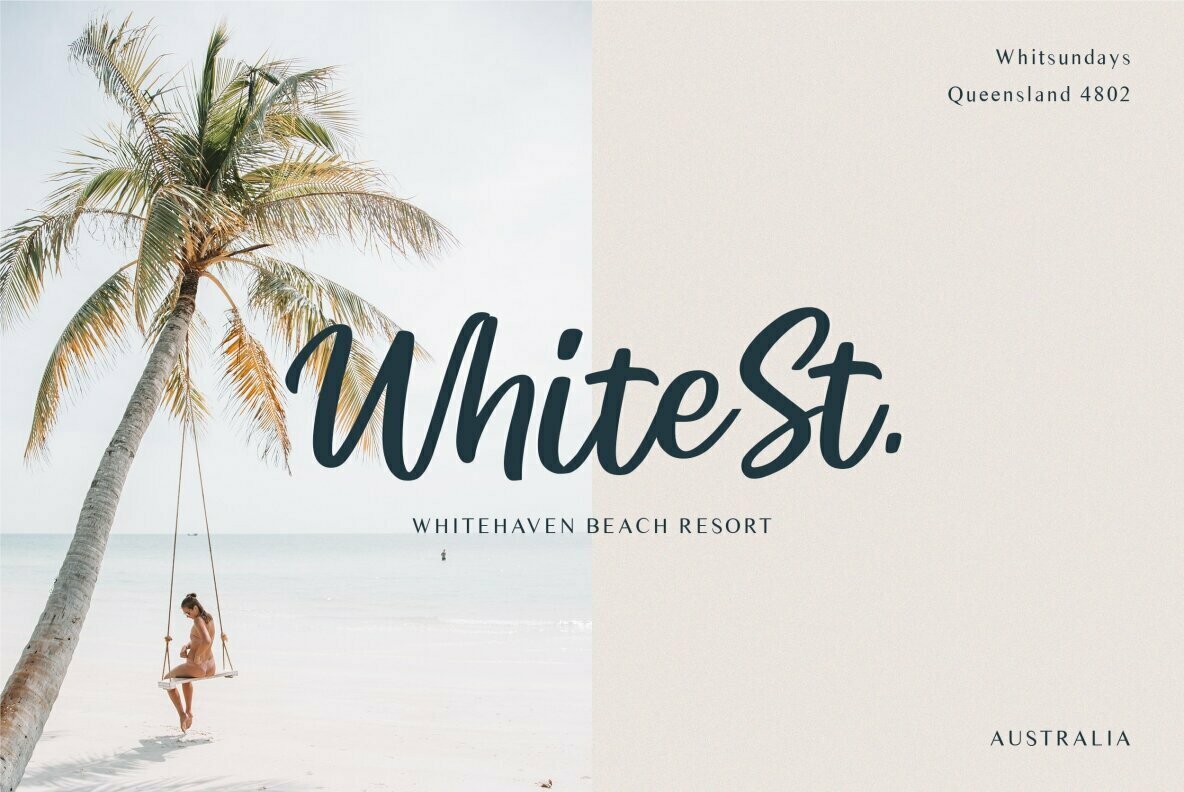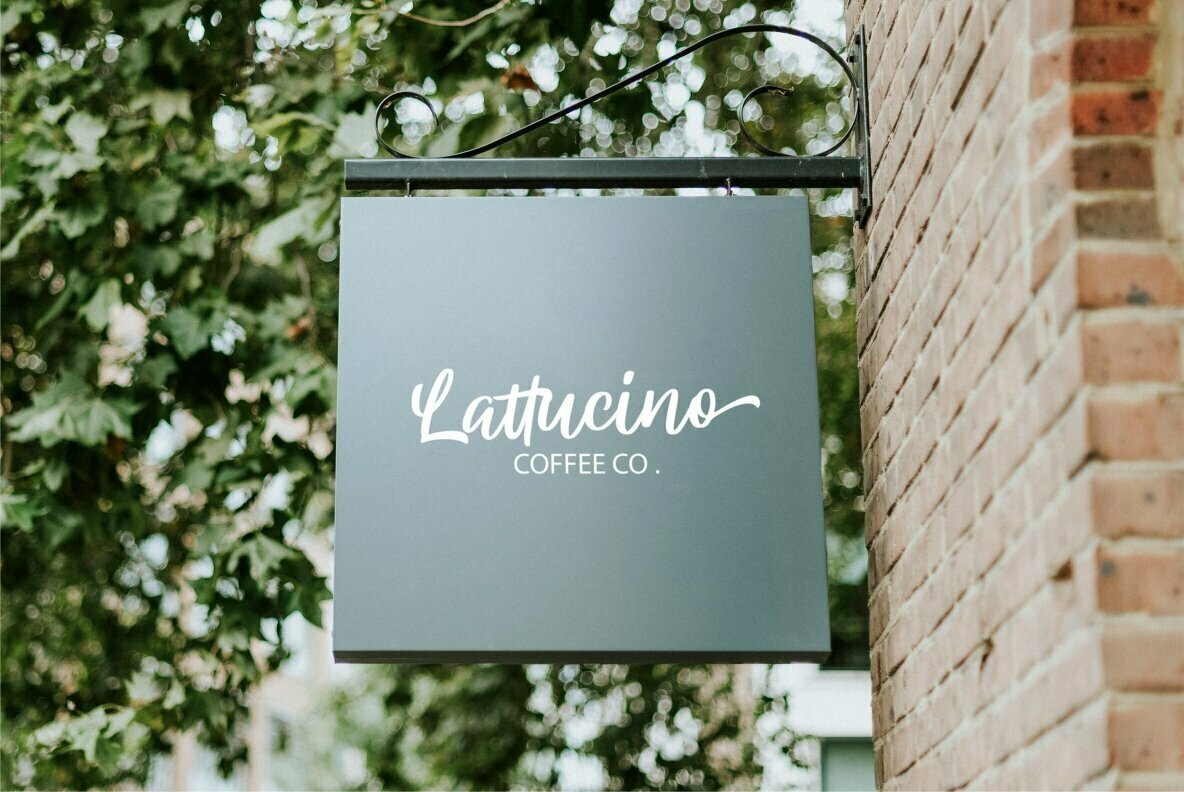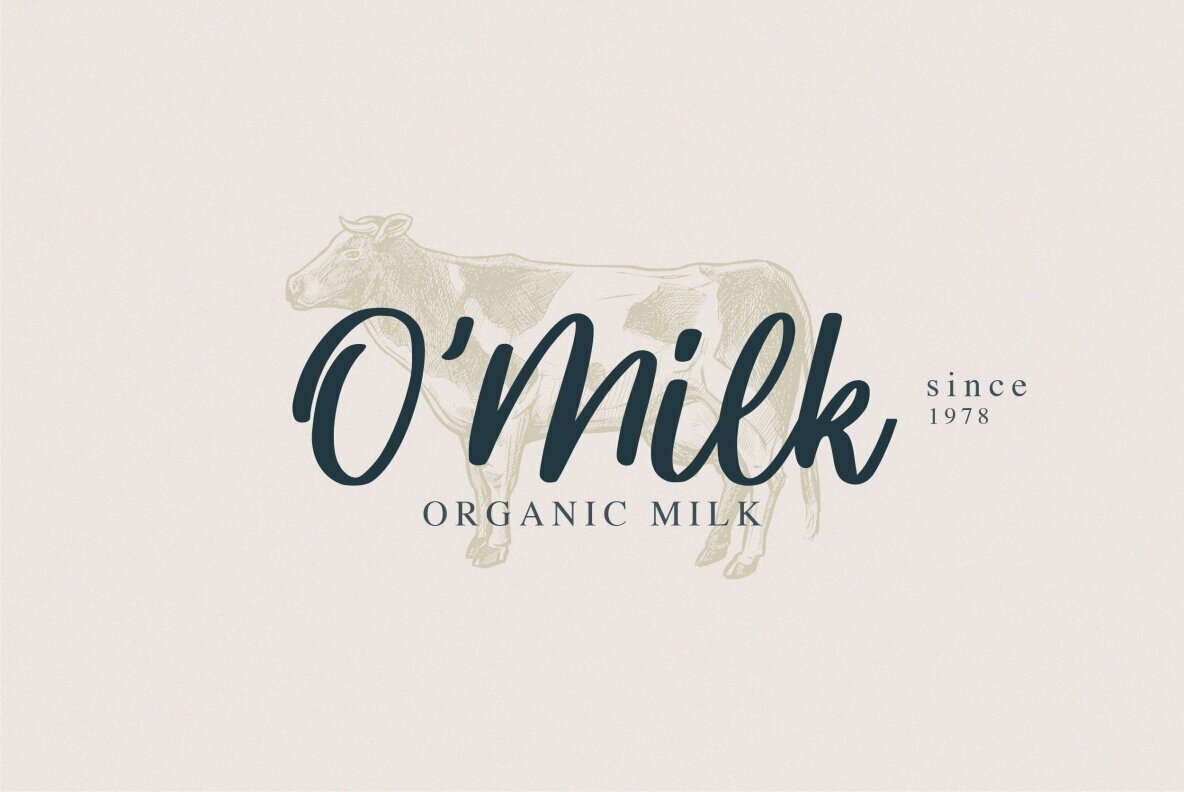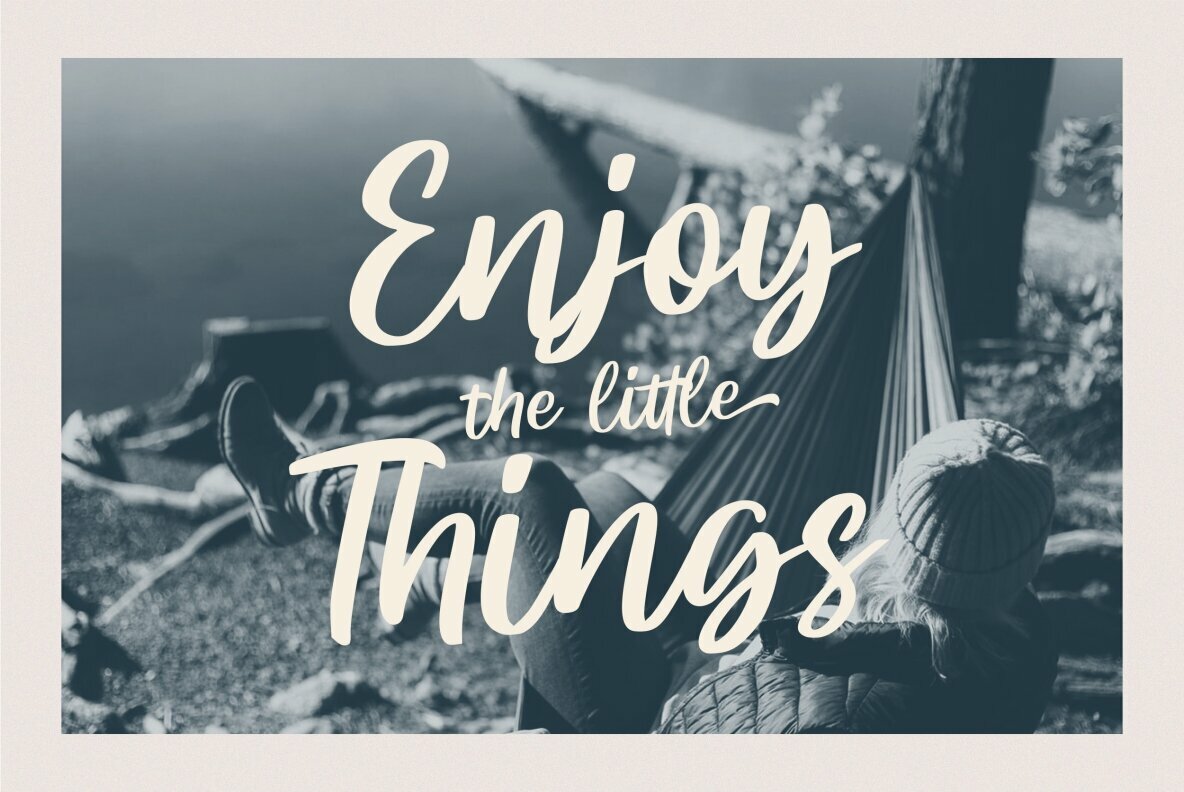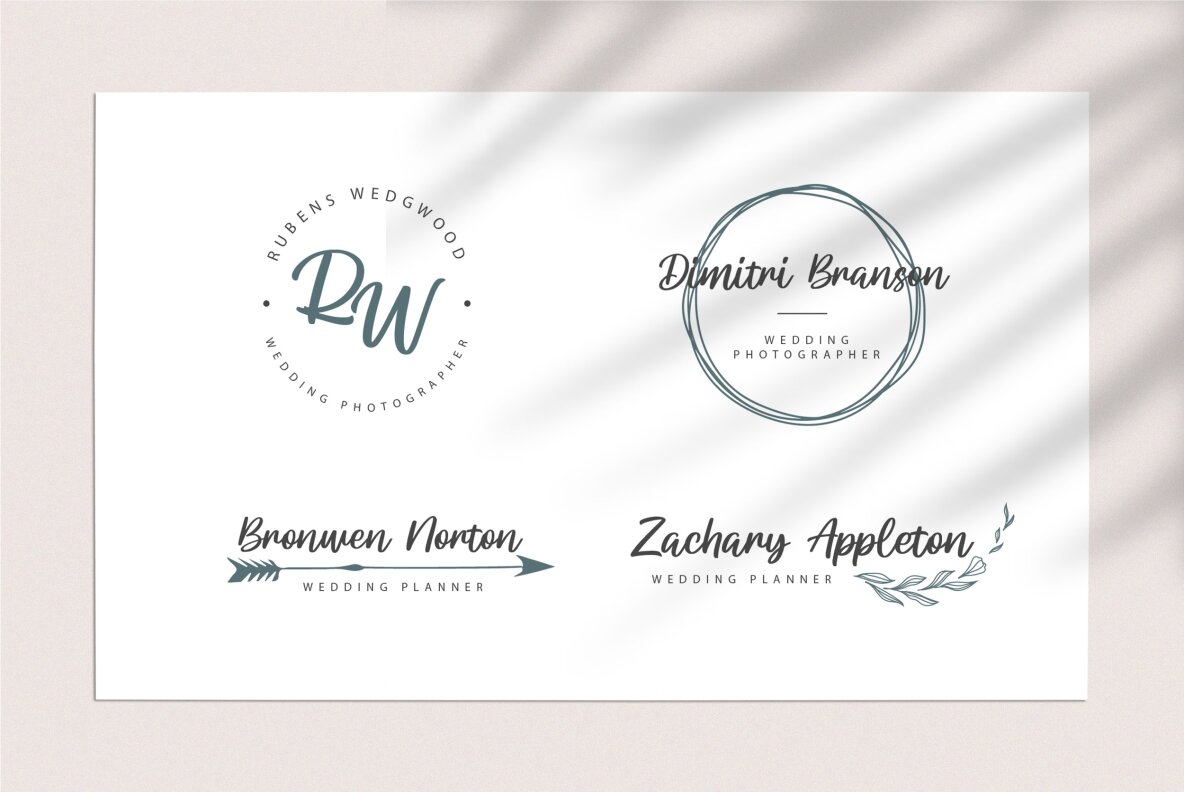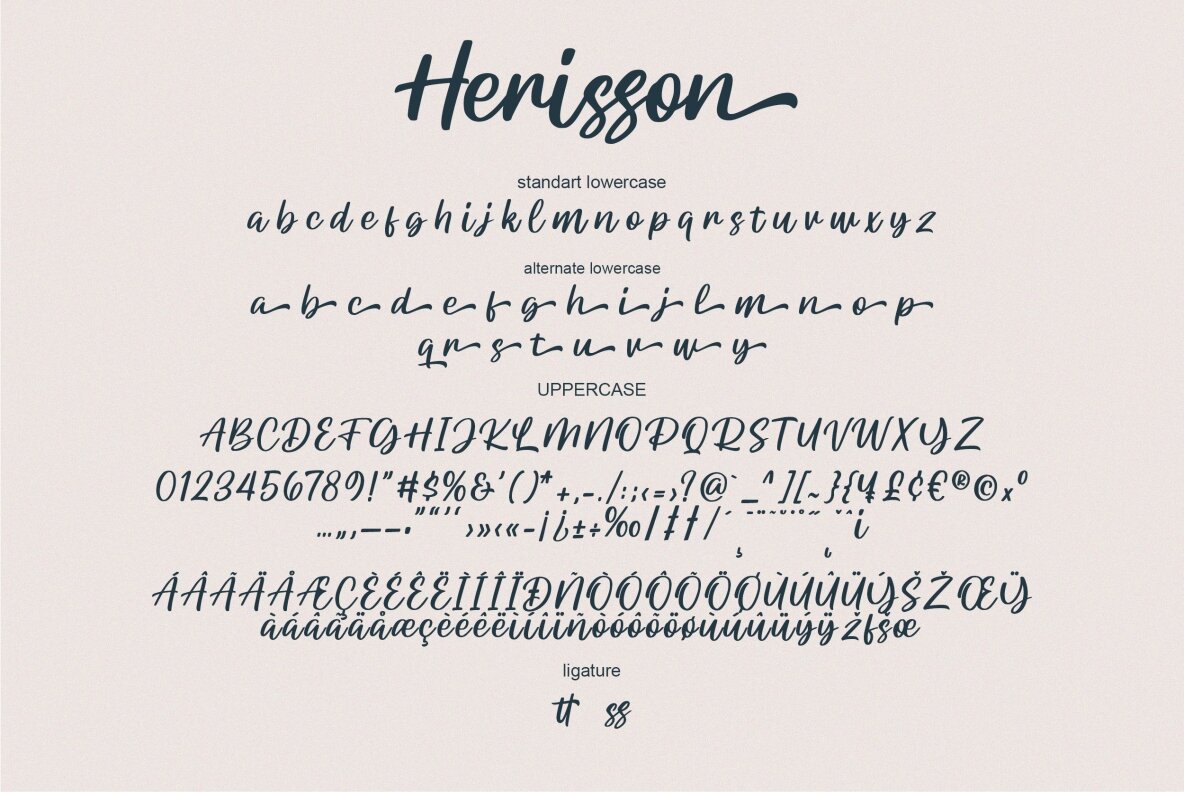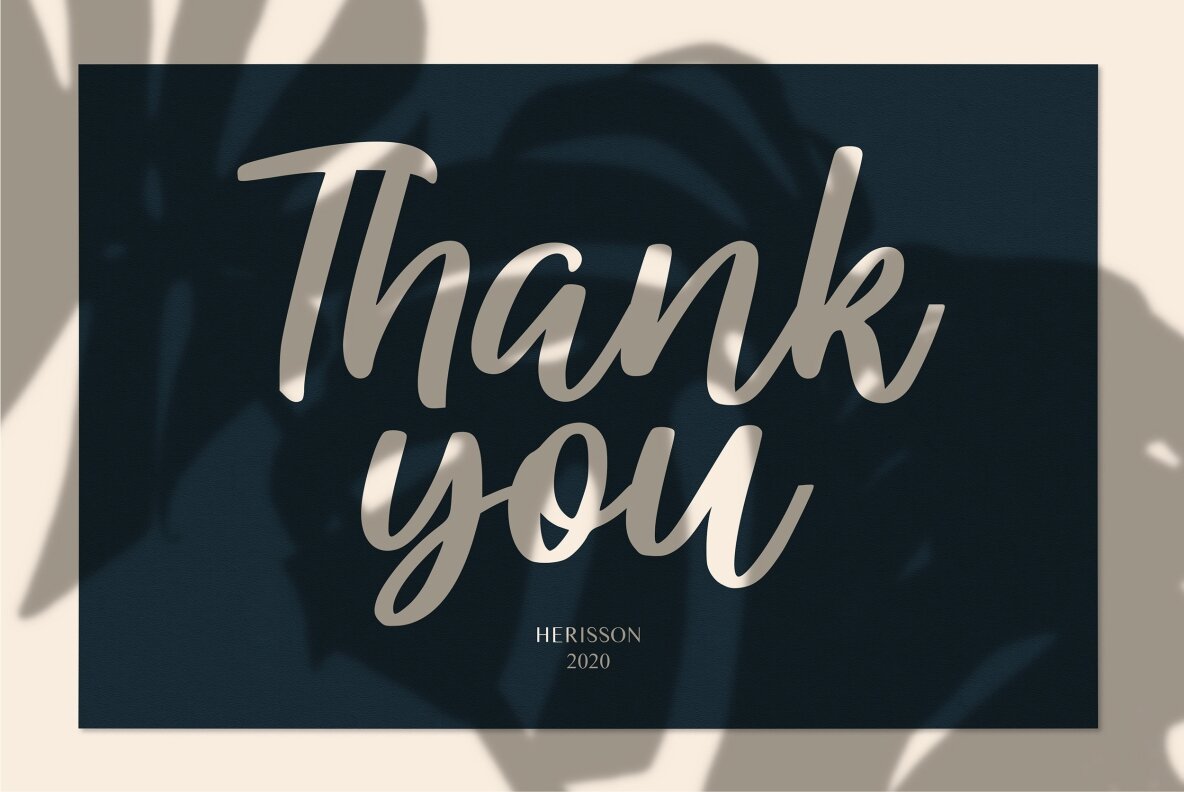
Herisson Font
Herisson
Herisson offers a unique blend of attractive curves and a fresh urban flair, providing a script handbrush font ideal for diverse creative applications. Its design promises an eye-catching appeal, making it perfect for logo creation, brand imagery, handwritten quotes, product packaging, merchandise, and social media visuals.Herisson: Stylish Script for Urban Designs